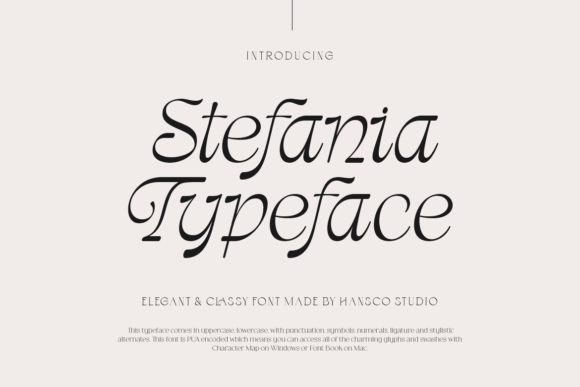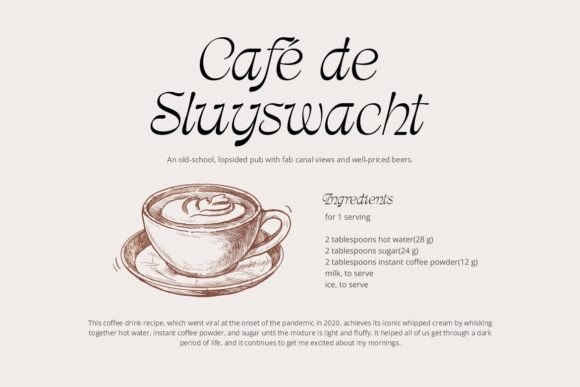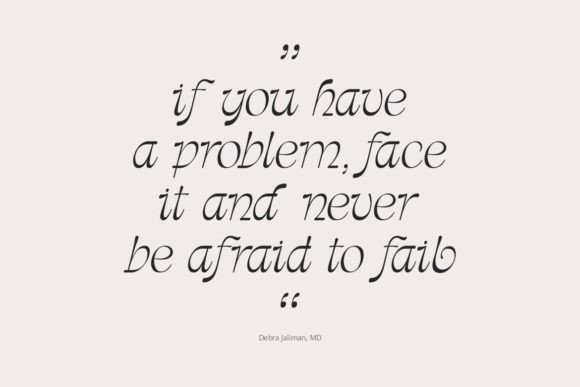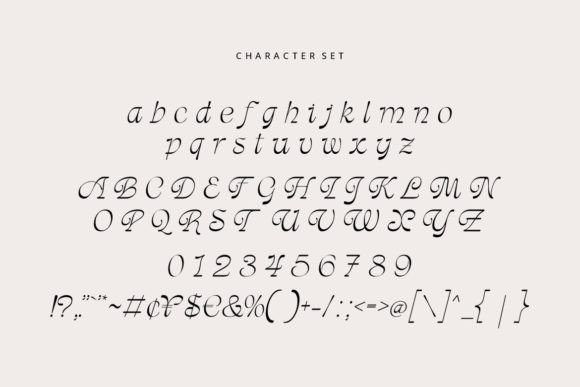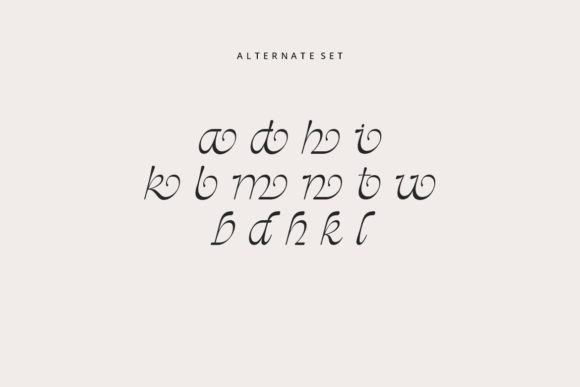
Stefania Font
Stefania Font is a classy display serif font with unique look that is perfect for multipurpose projects. I made Stefania Font inspired by the concept of romantic vibes and made it into a modern yet luxury style. This font is also looks elegant and will fit well in any design and very recommended for logo, crafts, posters, books, branding, quotes, print templates, packaging, invitations, product labels, advertising, wedding project and more.